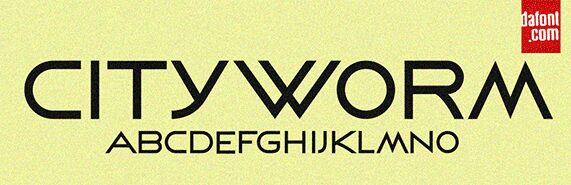
Cityworm Regular
Cityworm, a unique creation by Vladimir Nikolic, boasts a sans serif style that merges modernity with a twist of the unusual. With its semi-light weight and expanded width, Cityworm stands out for its clean lines and subtly extended characters. The font's generous spacing and geometric precision lend it an aesthetic that is both elegant and assertive.
Visually, Cityworm exudes an air of contemporary sophistication, making it an excellent choice for branding projects, editorial headlines, or any creative endeavor seeking a fresh yet readable typeface. Its distinct character shapes suggest versatility—capable of adding character to minimalist designs or bringing clarity to more intricate compositions.
Given its expansive nature and stylish simplicity, Cityworm promises to inject a dose of personality into your design without overpowering the message it carries. Whether for print or digital use, this font is poised to captivate audiences across a spectrum of creative contexts.